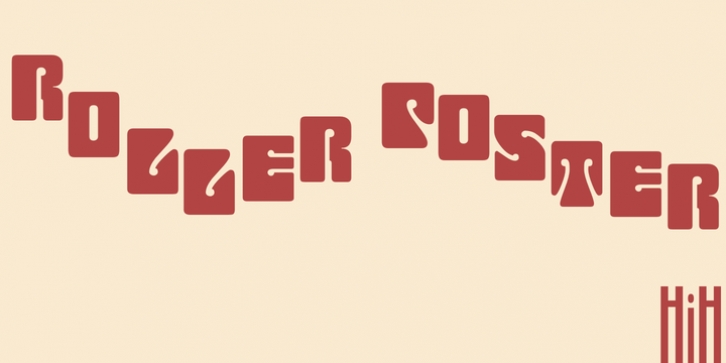
In November 1965 there was an exhibit of Jugendstil and Expressionist art at the University of California. Alfred Roller's Secession Poster was part of that exhibit. Wes Wilson was designing promotional material at Contact Printing in San Francisco. Among their clients was a rock promoter named Bill Graham, staging dance-concerts at Fillmore Auditorium. Wilson saw the catalog from the UC exhibit and Roller's lettering. Wilson adapted Roller's letter forms to his own fluid style. The result was the poster for the August 12-13, 1966 Jefferson Airplane/Grateful Dead concert at Fillmore put on by Graham (BG23-1). Wilson continued to use Roller's letter forms on most of the posters he did for Graham through May 1967, when he stopped working for Graham. The posters were extremely successful and the lettering style along with Roller's letter forms were picked up by other artists, including Bonnie MacLean, Clifford Charles Seeley, James Gardner, and others. The Secession poster and the Fillmore posters have inspired a number of fonts in addition to ours. Among them are JONAH BLACK (& WHITE) by Rececca Alaccari, LOVE SOLID by Leslie Carbarga and MOJO by Jim Parkinson. Each is different and yet each clearly shows its bloodlines. Our font differs in two ways: 1) the general differences in the interpretation of the letter forms and 2) the modification of the basic letter form to incorporate the diacriticals within the implied frame of the letter, after the manner of the original design by Roller. We borrowed Carbarga's solution to the slashed O and used it, in a modified form, for other characters as well to accomplish the same purpose. We recommend that you buy ours and at least one of the other three. According to Alaccari, a version called URBAN was released by Franklin Lettering in the 70's (and is shown on page 51 of The Solotype Catalog). For comparison of our font to original design, see image files roller_poster_2s.jpg of original poster and roller_poster_2sx.jpg showing reconstruction using our font for the lower portion (recontructed area indicated by blue bar).
Please note the consistency of character width. In the lower case, 23 of the basic 26 letters are 1/2 EM Square wide. The 'i' is an eighth narrower, while the 'm'& 'w' are one quarter wider. All the Upper Case letters are 1/8 EM wider than the lower case. This is to make it easier to fill a geometrical shape like a rectangle, allowing you to capture a little of the flavor of Wes Wilson's Fillmore West poster using only a word processor. We have also included a number of shapes for use as spacers and endcaps. If you have a drawing program that allows you to edit an 'envelope' around the letters to distort their shape, you can really get creative. I used Corel Draw for the gallary images, but there are other programs that can accomplish the same thing. The image file "roller_poster_keys.jpg" shows the complete character set with the keystrokes required for each character (see "HiH_Font_readme.txt" for instruction on inserting the non-keyboard characters). The file "roller_poster_widths.jpg" shows the exact width of each character in EM units (based on 1000 units per EM square).
You will notice that the font is set wide for readability. However, most programs will allow you to tighten up on the character spacing after the manner of Roller & Wilson. In MS Word, for example, go to the FORMAT menu > FONT > CHARACTER SPACING. Go to the second Drop-Down Menu, labeled 'Spacing' and select 'condensed' and then set the amount that you want to condense 'by' (key on the little arrows); two points (2.0) is a godd place to start. Let your motto be EXPLORE & EXPERIMENT.
Art Nouveau has always been one of my favorite movements in art -- I grew up in a home with a couple of Mucha prints hanging on the living room wall. Perhaps because of that and because I lived through the sixties, I have enjoyed researching and designing this font more than any other I have worked on. Let's face it (pardon the pun), Roller Poster is a FUN font. You owe it to yourself to have fun using it.